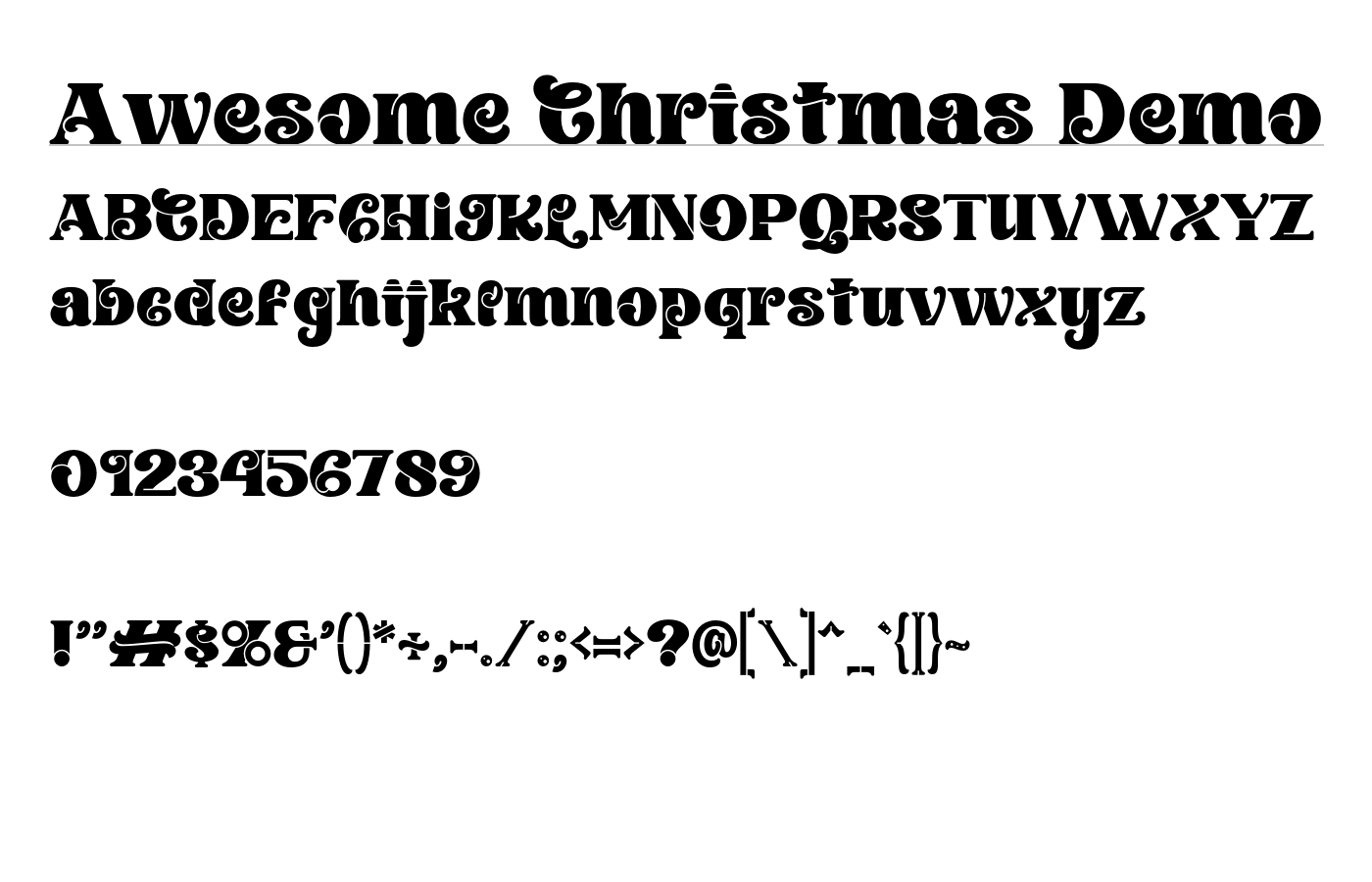
Awesome Christmas Demo is a playful serif font with a bold, decorative style featuring unique swirls and curls on many characters, giving it a festive and whimsical feel. Its strong weight and intricate details make it perfect for holiday-themed designs, logos, and packaging where a fun, eye-catching look is needed. This font stands out in headlines and display settings, bringing charm and personality to Christmas and seasonal branding.
Awesome Christmas Demo Font
About Awesome Christmas Demo Font
| Font family | Awesome Christmas Demo Font |
| Designer | Dida Ahluddin |